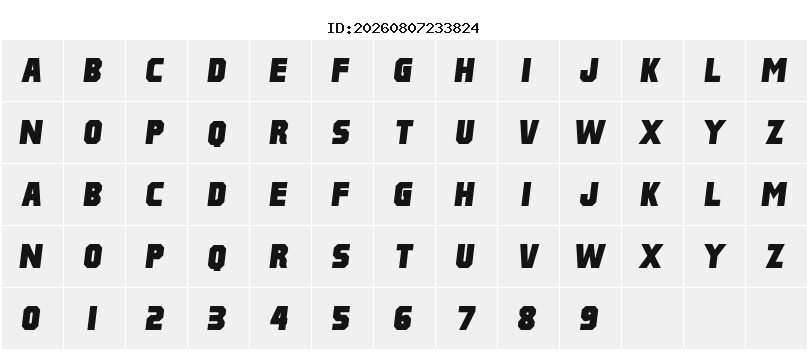
Pulp Fiction M54 Preview
• Font Name: Pulp Fiction M54
• Font Style: Italique
• Full Font Name: Pulp Fiction M54 Italique
• Designer: Mohammed Rahman
About Pulp Fiction M54.ttf
Pulp Fiction M54.ttf is a modern, elegant sans-serif font designed for ultimate readability and visual harmony. Perfect for branding, headlines, web design, and print materials.